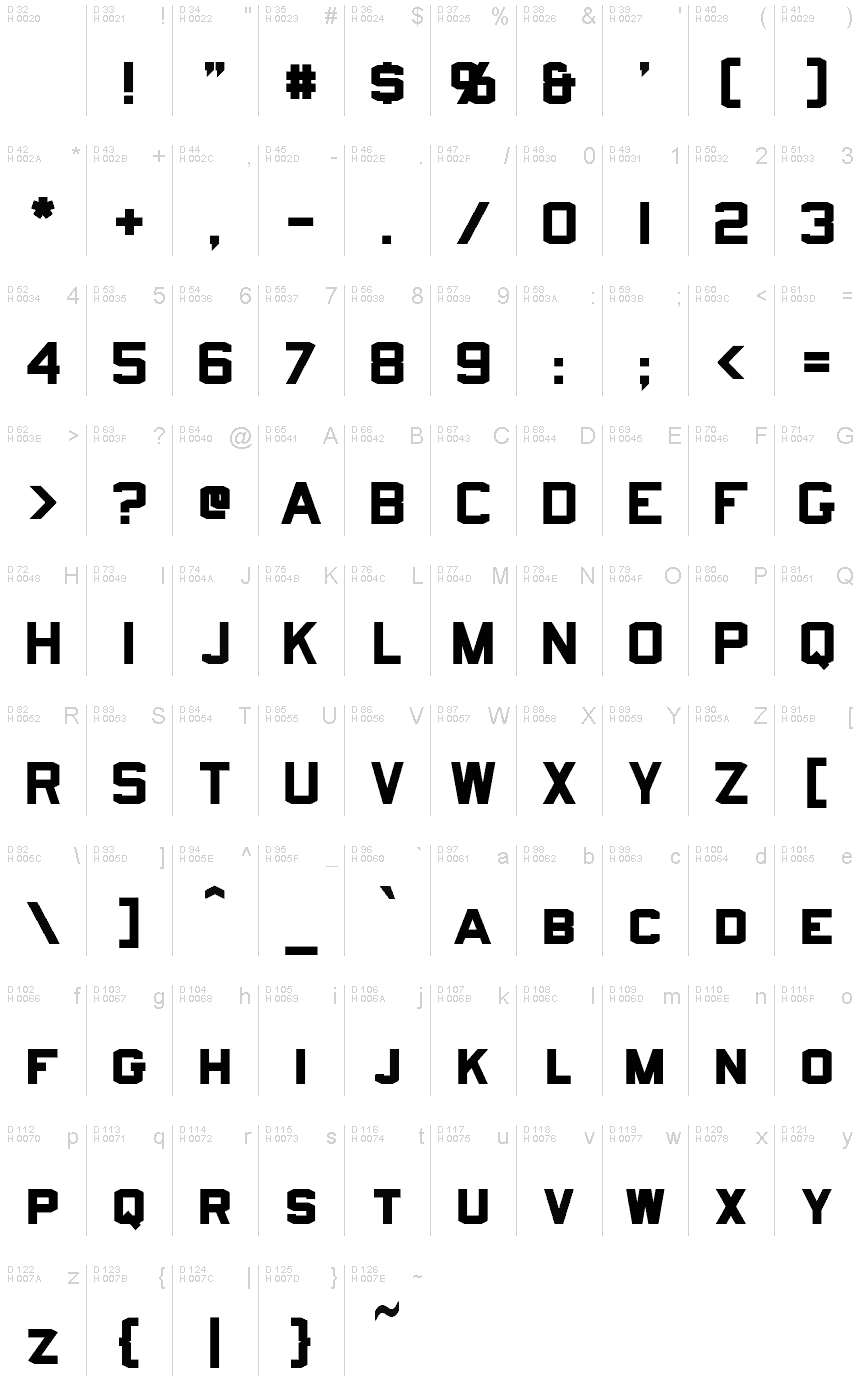
Norfolk Bold
Norfolk Bold is a striking, military-inspired font that exudes a sense of strength and authority. Designed by Neale Davidson, this bold typeface is based on the lettering used on US Navy ships and submarines, lending it a distinct, authoritative character.
The font's solid, geometric letterforms and clean lines create a powerful, impactful aesthetic that would be well-suited for a variety of design applications, from branding and packaging to editorial and signage. Norfolk Bold's versatility makes it an excellent choice for projects requiring a bold, commanding presence, whether in digital or print mediums.